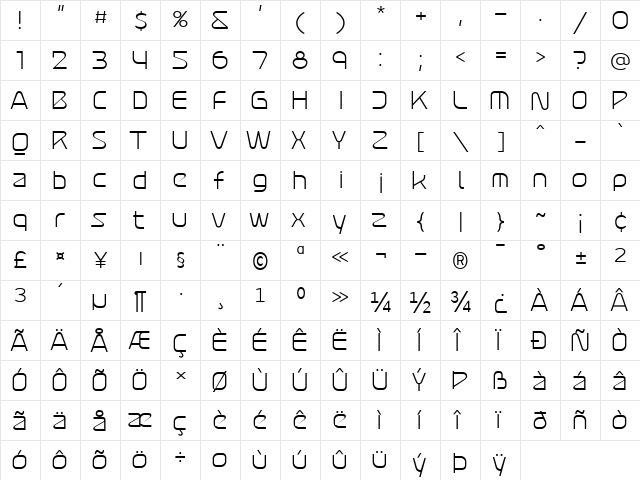
Atures 300 PERSONAL USE ONLY Regular
| Foundry | Mans Greback |
| Designer | Mans Greback |
Design Context for Atures 300 PERSONAL USE ONLY Typeface
Atures 300 PERSONAL USE ONLY is a composed and adaptable typeface that performs quietly and consistently across a wide range of design contexts.